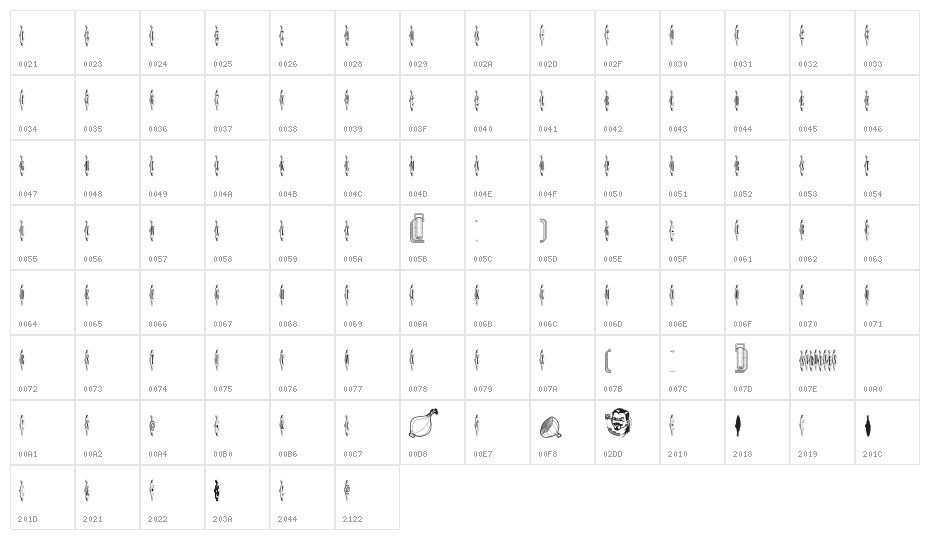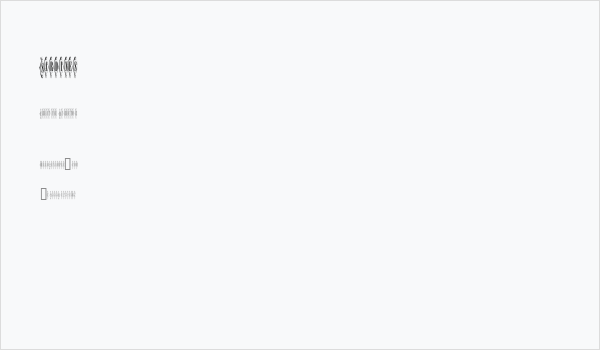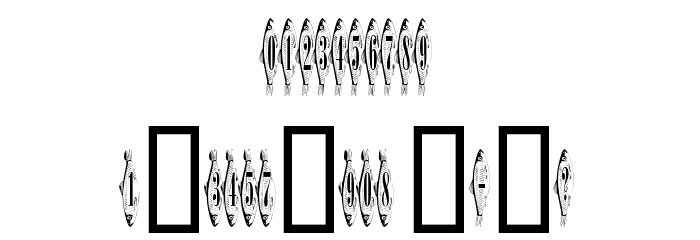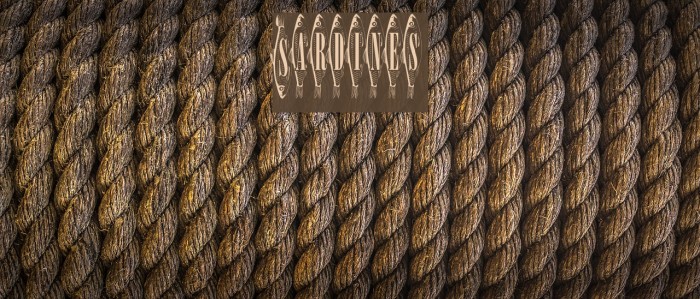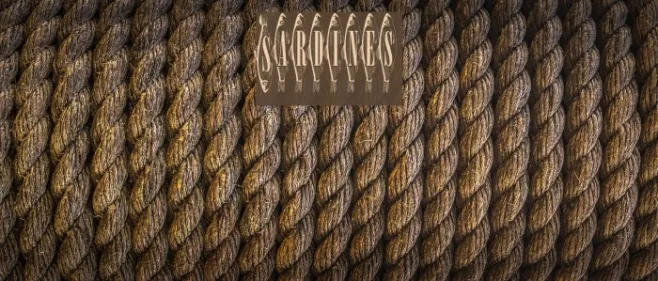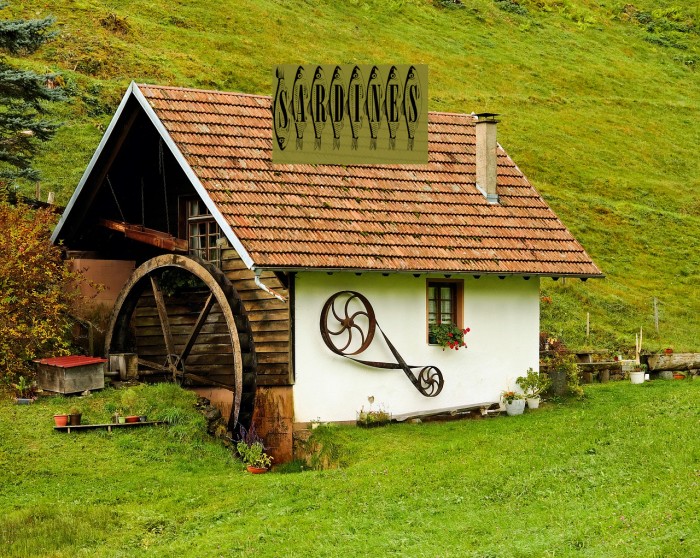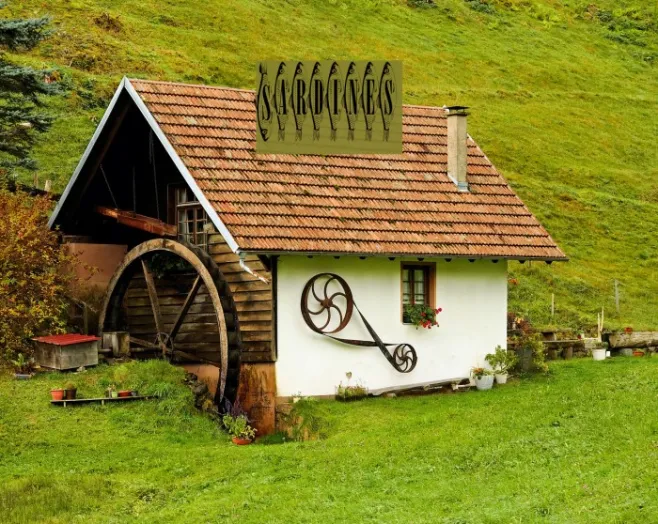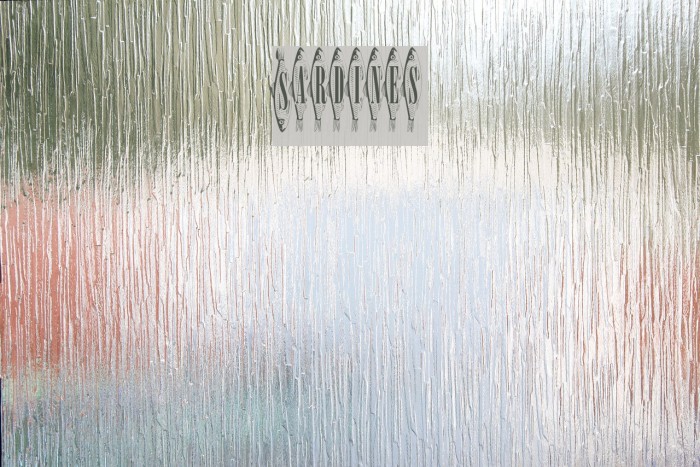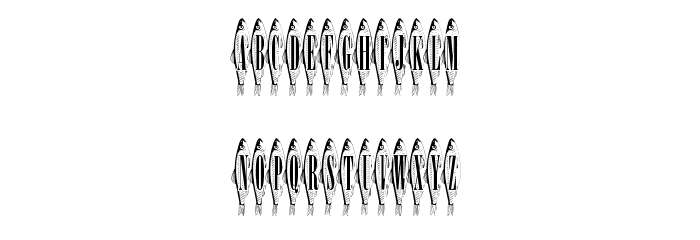
Sardines Font
Sardines Description
This font is a playful and creative design where each character is encapsulated within the shape of a sardine. The letters and numbers are cleverly integrated into the fish design, giving it a unique and whimsical appearance. The font maintains a consistent style across uppercase, lowercase, and numerical characters, with each character being distinct yet harmonious within the overall theme. The special characters are also designed to fit within the sardine shape, maintaining the cohesive look. This font is ideal for projects that require a fun and distinctive visual element.